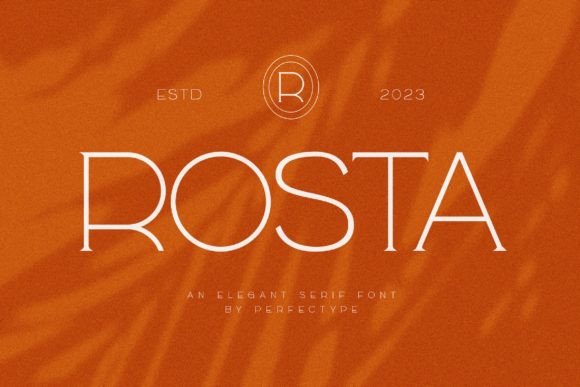
Looking for the perfect font to elevate your designs? Look no further than Rosta Font, the best font for letter E. Created by Perfectype, Rosta is an elegant serif typeface that combines a classy and modern style, making it the ideal choice for all your design needs.
With its sleek and sophisticated look, Rosta Font is perfect for branding projects, helping you create a strong and memorable brand identity. Whether you're designing a logo for your business or working on wedding invitations, Rosta adds a touch of elegance and professionalism to any project.
Social media has become a powerful platform for promoting your business, and Rosta Font is here to help you stand out. Use it to create eye-catching social media posts that will captivate your audience and leave a lasting impression. Rosta's clean and refined design ensures readability, ensuring that your message is conveyed effectively.
When it comes to advertisements and product packaging, Rosta Font shines. Its versatility allows you to create stunning visuals that will grab attention and entice customers. Whether you're launching a new product or designing labels for your products, Rosta will make your brand look irresistible.
Photography is an art form, and Rosta Font understands that. Use it to add a touch of elegance to your watermarks, giving your photographs a professional and polished look. With Rosta, your images will leave a lasting impression on viewers.
Invitations and stationery are an important part of any event, and Rosta Font is here to make them even more special. Its timeless design adds a touch of sophistication to wedding invitations, party invites, and any other event-related materials. Let Rosta be the font that sets the tone for your unforgettable occasions.
In any project, readability is key, and Rosta Font delivers. Its high level of readability ensures that your message is easily understood, making it a reliable choice for any creative endeavor.